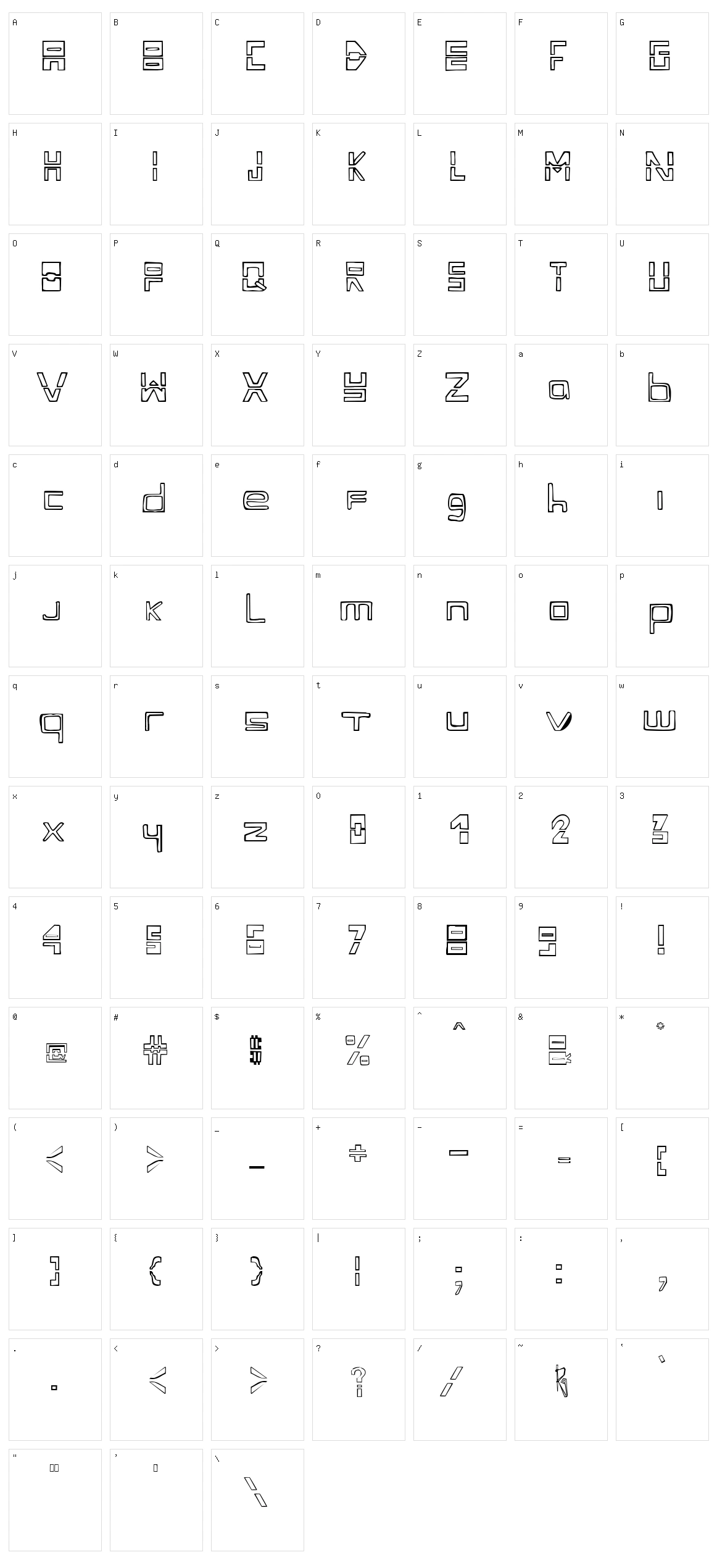
The free font Fontdizajnesrki is carefully designed by Roberta, showcasing a thoughtful balance of creativity and usability and falls under the Cartoon font style. When you download the ZIP file, it contains only 28.4 KB of font files, making it lightweight and quick to download. Please review the license details below to understand permitted usage and distribution rights. If license information is not available, we recommend using this font for personal projects only or contacting the author directly for commercial usage permissions.